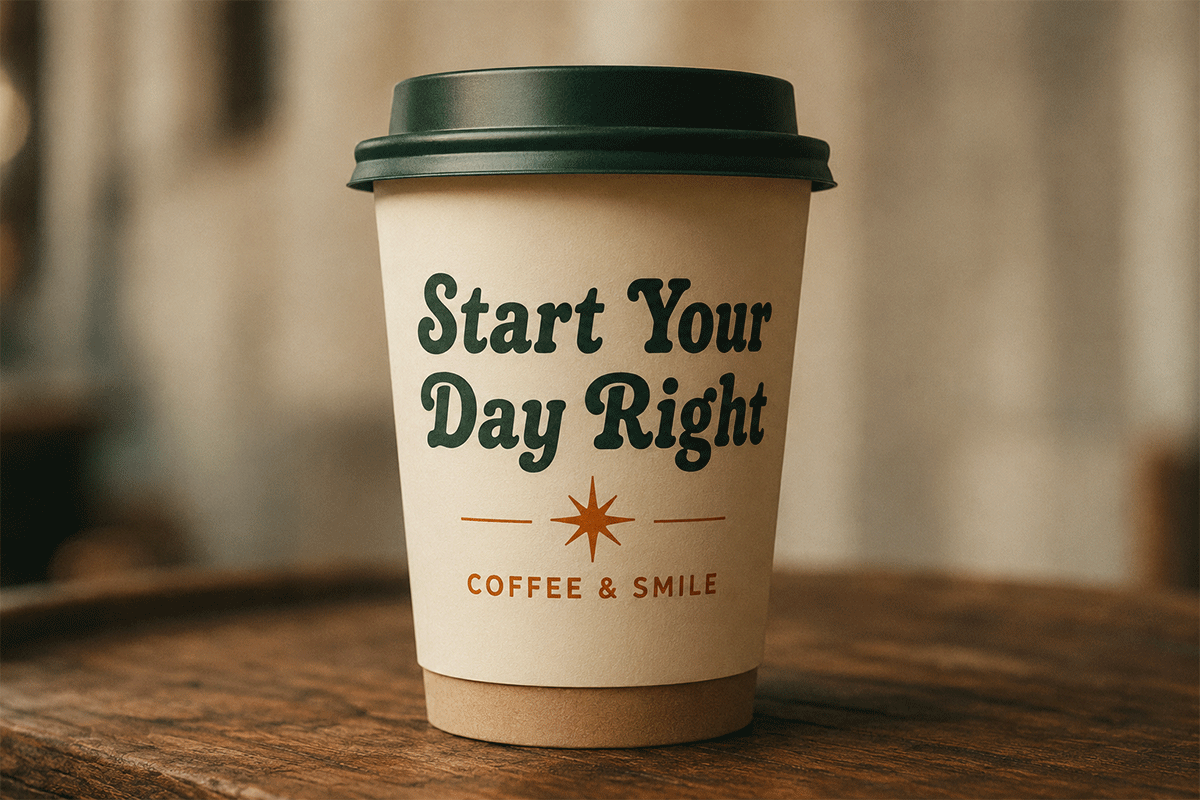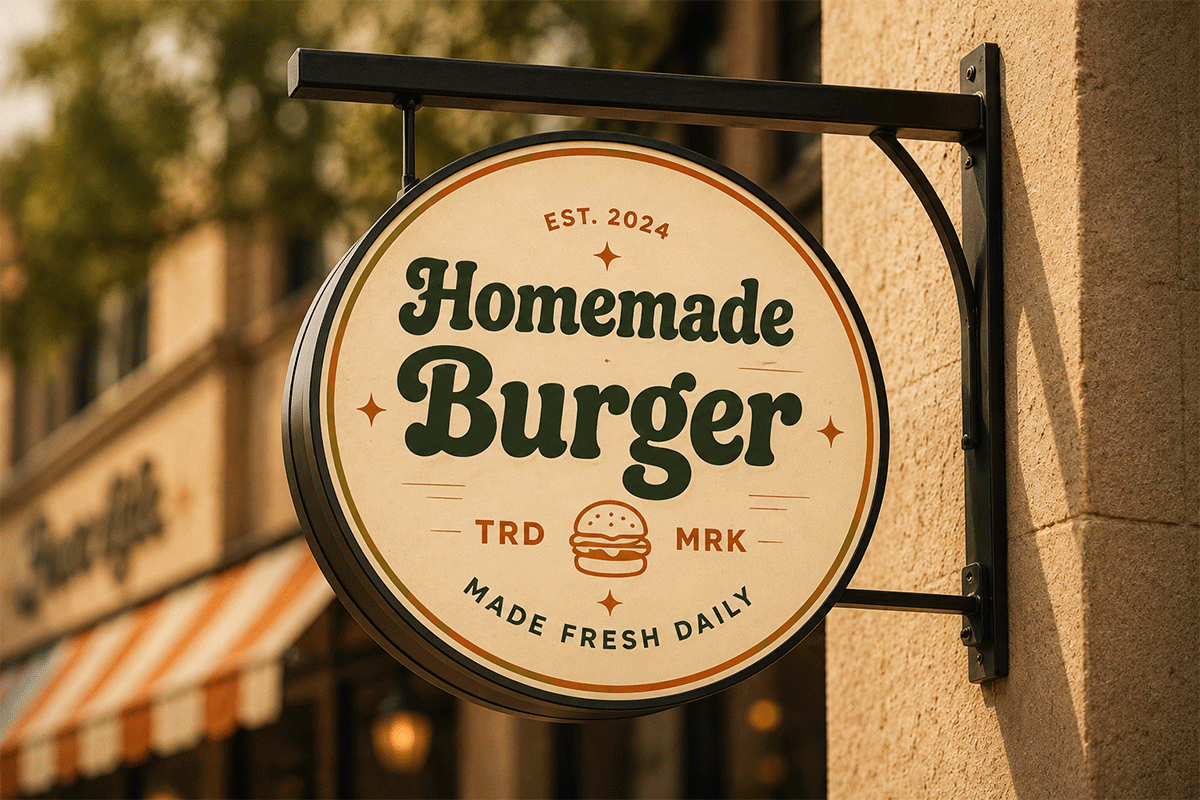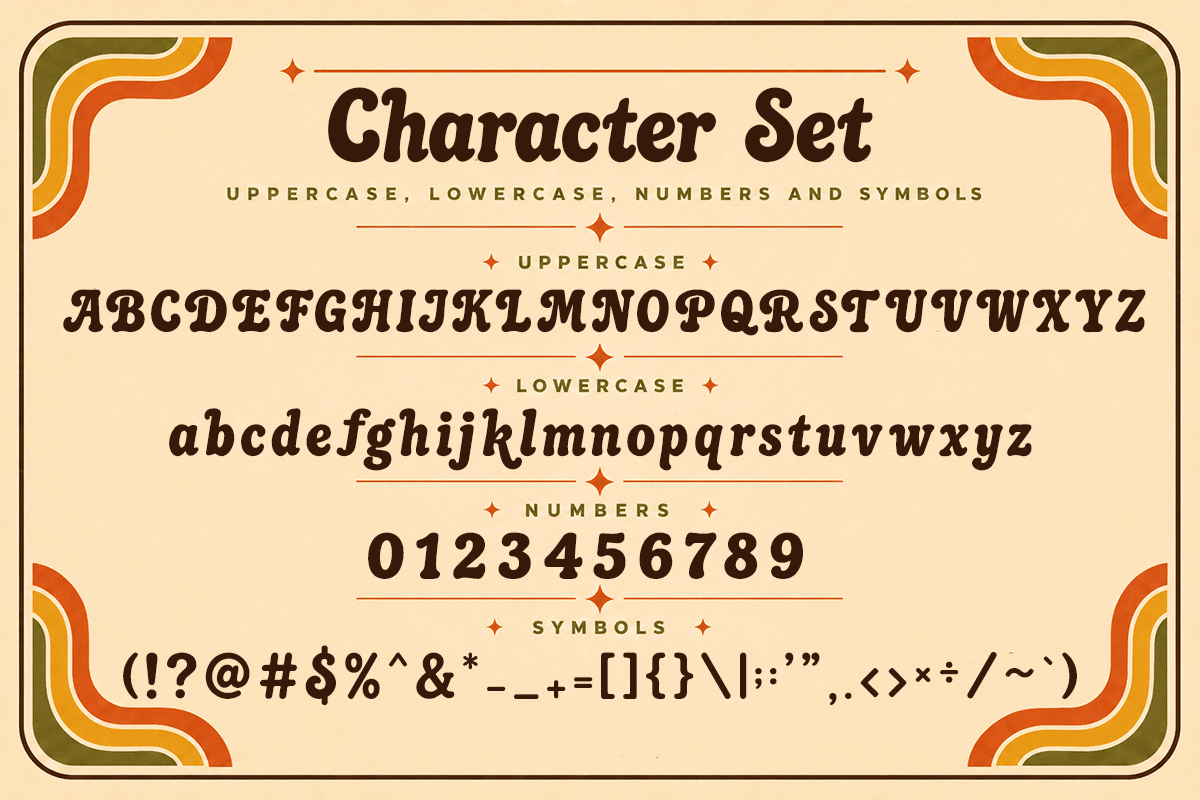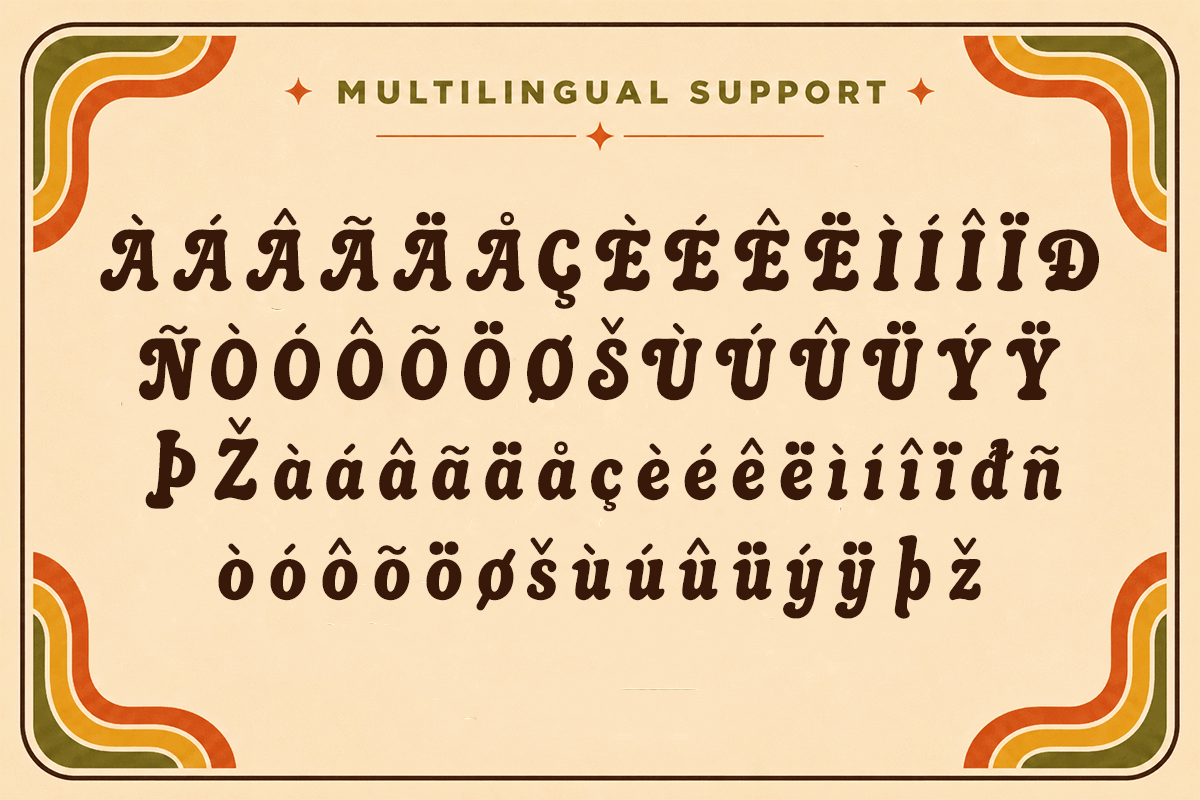
Sunridge A Modern Retro Display Font is a warm and nostalgic retro display font inspired by the bold typography of the 60s and 70s. Featuring smooth curves, chunky letterforms, and a soft vintage personality, this font brings an authentic old-school charm to any creative project.
With its distinctive retro shapes and friendly flowing style, Sunridge A Modern Retro Display Font is perfect for designs that need a classic, cheerful, and timeless look. It works beautifully for both modern branding and vintage-inspired artwork.For our customers, we provide a collection of The Best decorative Fonts, each with its own unique styles and characteristics, so that our customers can create any design they want. We know what our clients love! That is why we prepare everything you may need in one simple downloadable package for you. Our easy-to-grab package contains all of the files you will ever need to create beautiful typography!